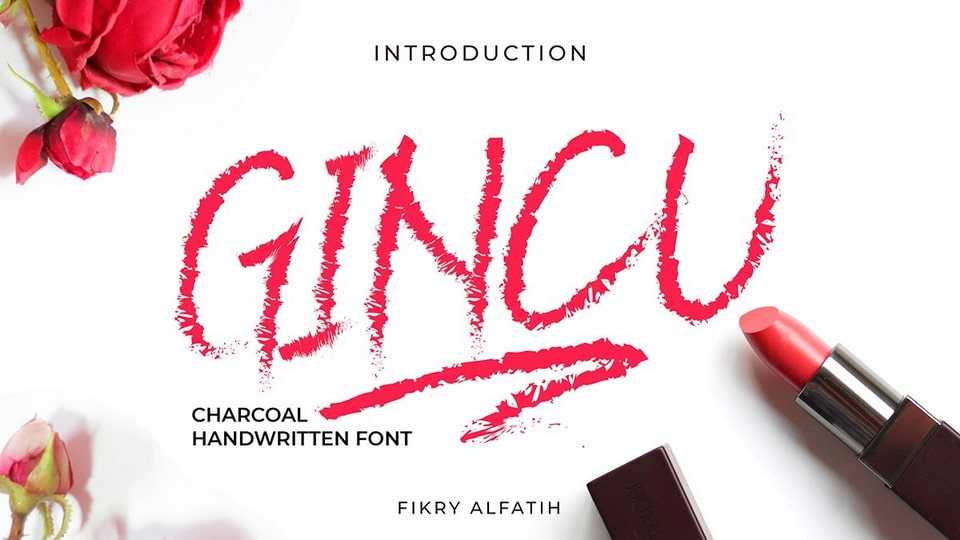
Download Gincu font, an energetic charcoal handwritten typeface that is suitable for several moods such as power, horror and chalkboard. Gincu is ideal for posters, logos, clothing, quotes, movies, social media posts about makeup, horror and school.
Designer: Fikry Alfatih